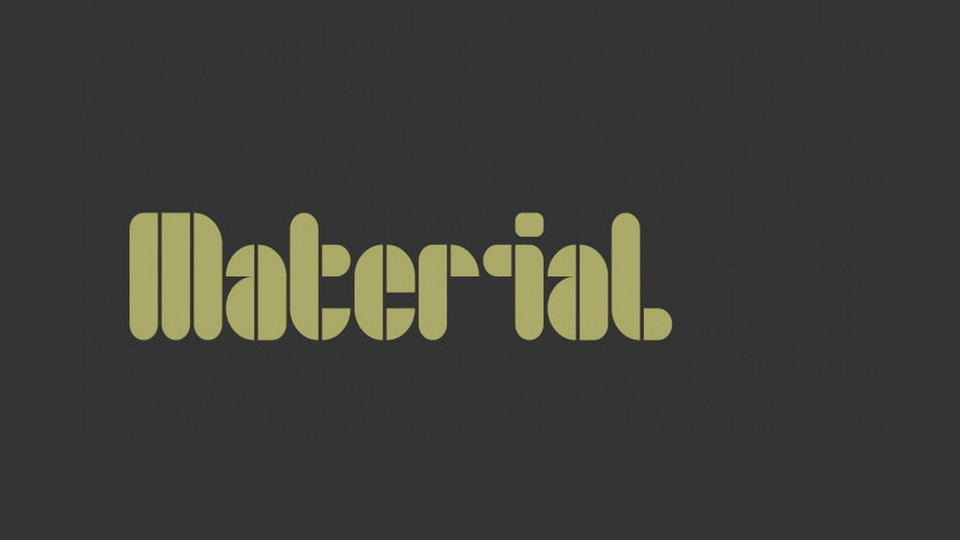
Download Material font, a modular geometric display typeface inspired by Bauhaus fonts and other stuff, and somehow from the aesthetic of clowning. Material font is best for posters, headlines, prints and typography artworks.
Designer: George Arnold